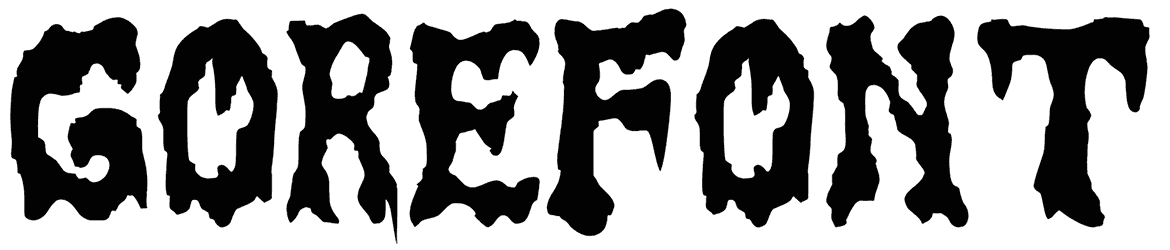
GoreFont
Here we bring you a chunky graffiti font, the same as GoreFont, that has the real potential to be your superior game-changer and take the quality of your artwork to the extreme.
This all-caps slime font comes with wavy characters and leads to a sense of jauntiness, vivacity, fear, or dread. So we strongly recommend you include this melting font in all of your professional projects, like posters, blog posts, editorial projects, and social media posts.